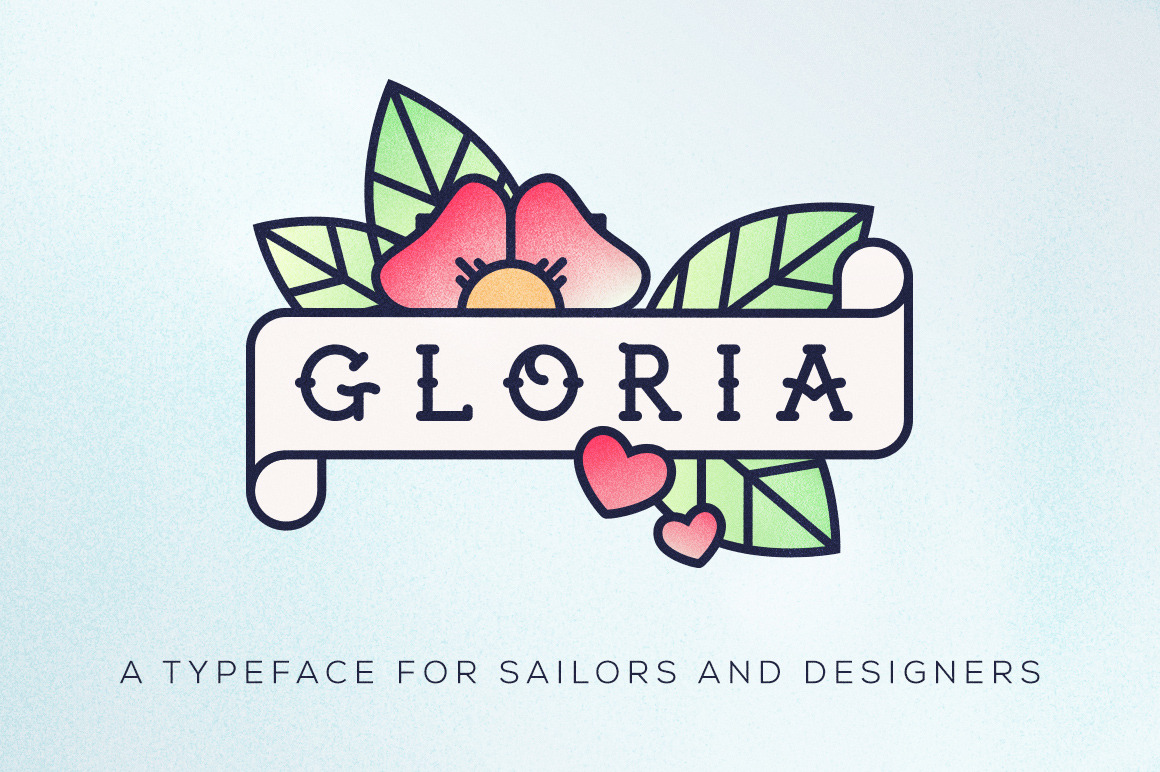
Gloria Typeface
Gloria is a carefully crafted font that is inspired by vintage tattoo lettering. Very popular with sailors in the 50's and later but still today often seen on people bodies. Gloria is a modern take which really compliments line art and graphics with its distinct letterforms. She comes in 3 weights and also included as a webfont.